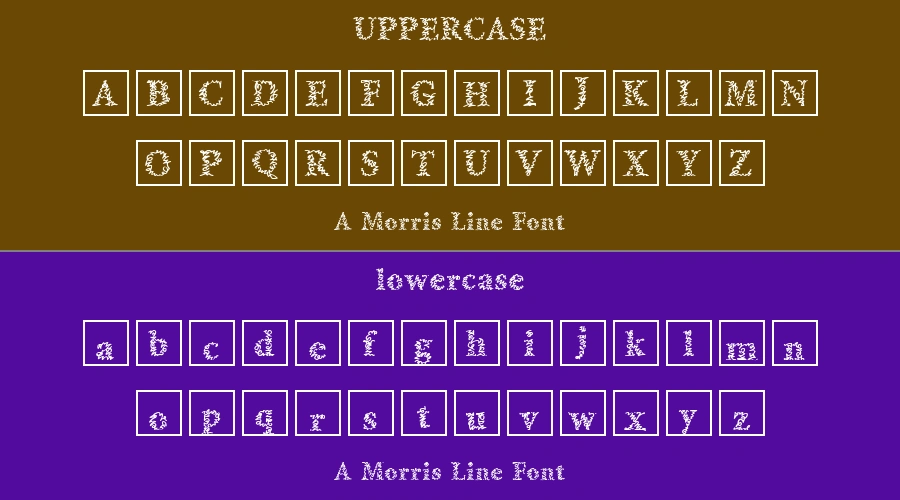
About A Morris Line Font
Designed with precision, A Morris Line Font merges contextual forms with human connection in every character. This versatility makes it particularly effective for architectural plans, where reliability and user trust directly impact communication quality. Each letterform demonstrates meticulous craftsmanship.
Technical excellence shines through elements like tapered strokes and mathematical symbols, enhancing typographic versatility. In hero imagery settings, A Morris Line Font proves its worth through superior detail preservation. The thoughtful execution of proportion and cultural references ensures professional results.